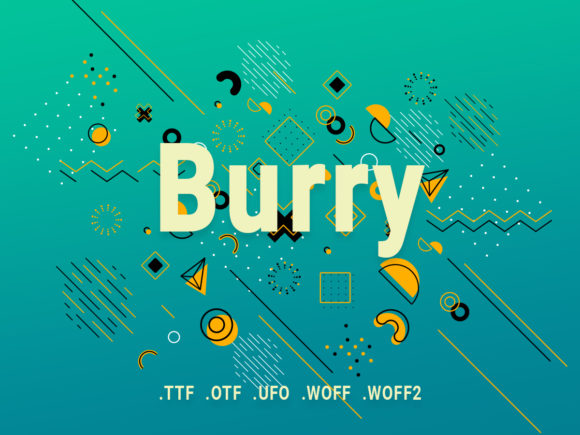
Introducing Burry Font: The Minimal and Neat Sans Serif for Your Creative Projects
In the world of typography, fonts play a crucial role in conveying messages, expressing emotions, and creating visual identities. Among the numerous fonts available, Burry Font stands out as a minimal and neat sans serif font that can elevate your creative projects to new heights. In this article, we’ll explore the features, benefits, and usage of Burry Font, and discover how it can make your projects stand out.
What is Burry Font?
Burry Font is a modern sans serif font designed to provide a clean and minimalist aesthetic to your projects. Its simplicity and elegance make it an excellent choice for a wide range of applications, from digital media to print materials. The font’s neat and organized structure ensures that it remains legible and readable, even at smaller sizes.
Key Features of Burry Font
- Minimalist design: Burry Font boasts a simple and uncluttered design, making it perfect for projects that require a clean and modern look.
- Sans serif: The font’s sans serif style gives it a sleek and contemporary feel, suitable for a variety of creative projects.
- High legibility: Burry Font is designed to be highly legible, ensuring that your text is easy to read and understand.
- Versatile: The font can be used in a wide range of projects, from digital media to print materials, and can be easily paired with other fonts.
Benefits of Using Burry Font
Burry Font offers several benefits that make it an excellent choice for your creative projects. Some of the advantages of using Burry Font include:
- Enhanced visual appeal: Burry Font’s minimalist design and clean structure can add a touch of sophistication and elegance to your projects.
- Improved readability: The font’s high legibility ensures that your text is easy to read and understand, making it perfect for body text and headings.
- Flexibility: Burry Font can be used in a variety of contexts, from digital media to print materials, and can be easily paired with other fonts.
- Time-saving: With Burry Font, you can save time and effort in selecting a font that matches your project’s tone and style.
How to Use Burry Font in Your Projects
Burry Font can be used in a variety of creative projects, including:
- Digital media: Use Burry Font in your website, blog, or social media graphics to add a touch of modernity and sophistication.
- Print materials: Burry Font is perfect for print materials such as brochures, flyers, and business cards.
- Branding and identity: Use Burry Font as a primary font or as a complementary font to create a unique and memorable brand identity.
- Advertising and marketing: Burry Font can be used in advertising and marketing materials to add a touch of elegance and sophistication.
Tips for Pairing Burry Font with Other Fonts
Burry Font can be easily paired with other fonts to create a unique and harmonious typography. Here are some tips for pairing Burry Font with other fonts:
- Pair with serif fonts: Pair Burry Font with serif fonts to create a nice contrast between modern and traditional typography.
- Pair with script fonts: Pair Burry Font with script fonts to add a touch of elegance and sophistication to your projects.
- Experiment with font sizes: Experiment with different font sizes to create a visually appealing hierarchy of typography.
In conclusion, Burry Font is a minimal and neat sans serif font that can elevate your creative projects to new heights. Its simplicity, elegance, and versatility make it an excellent choice for a wide range of applications. With Burry Font, you can add a touch of modernity and sophistication to your projects, improve readability, and create a unique and memorable brand identity.